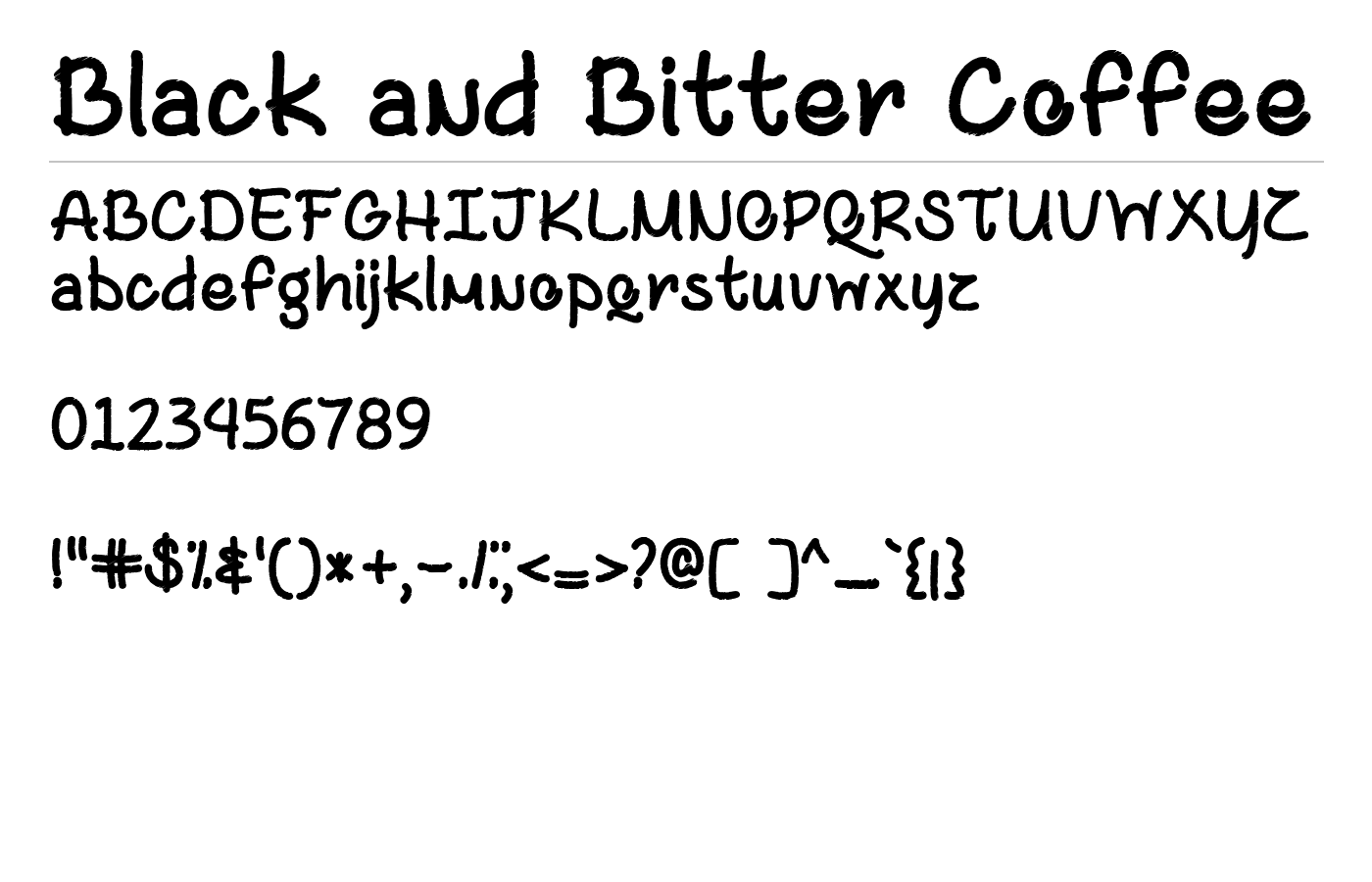
Black and Bitter Coffee is a playful handwritten sans serif font with a casual, slightly textured feel that mimics natural brush strokes. It features rounded, informal letterforms with medium weight and an approachable personality, making it ideal for creative, friendly designs such as logos, packaging, and posters. This font brings warmth and charm to projects that seek a hand-crafted, personal touch.
Black and Bitter Coffee Font
About Black and Bitter Coffee Font